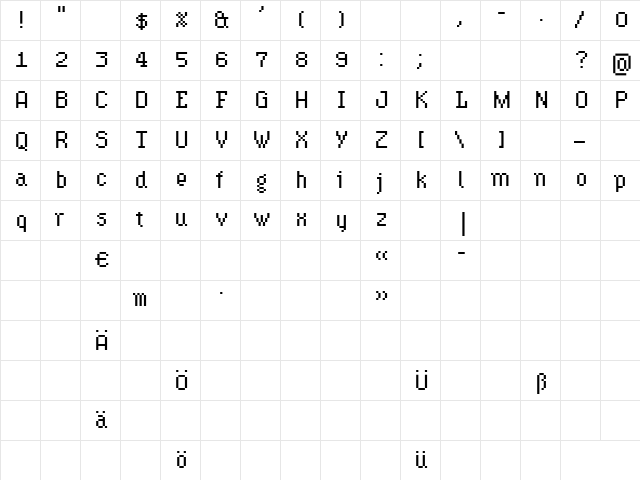
Hydrophilia Iced Font Preview
Hydrophilia Iced
Hydrophilia Iced Font Details
| Style | Iced |
Design Context for Hydrophilia Typeface
Hydrophilia is a composed and adaptable typeface that performs quietly and consistently across a wide range of design contexts.
Pro Tip: Use Hydrophilia in both headline and body roles to test its range before committing to a single application.